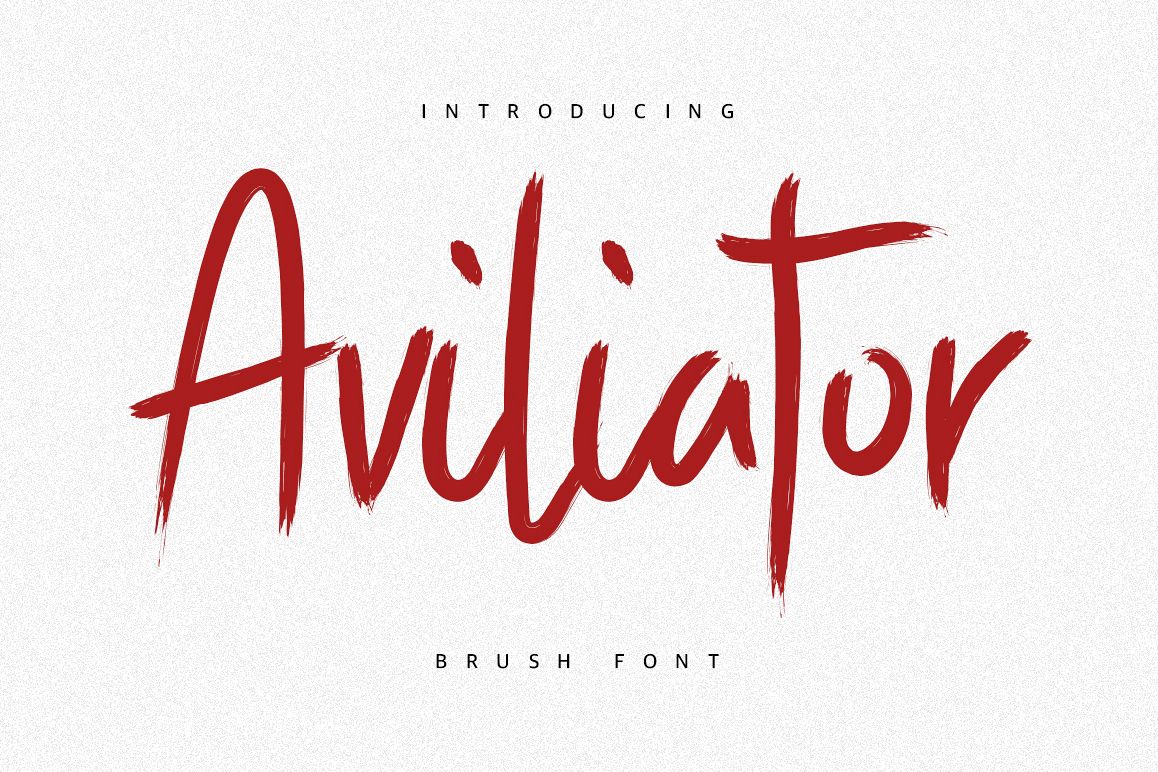
Aviliator Brush Font
Give your designs an authentic brush handcrafted feel. "Aviliator" is perfectly suited to stationery, logos and much more.
Included Stylistic Alternates & Ligatures.